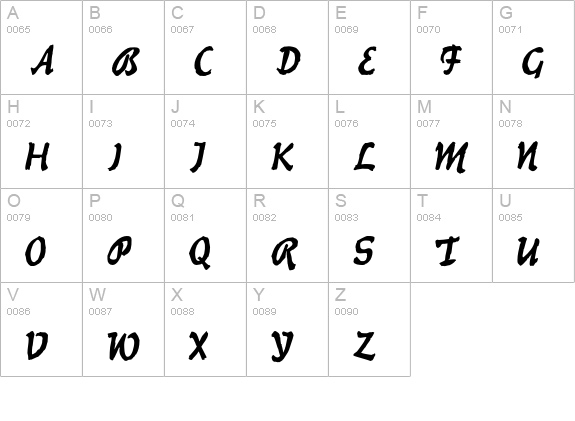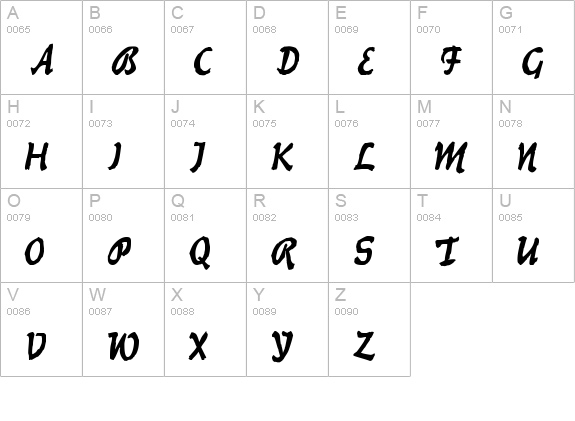
Bilitis Font Details
Bilitis font is a beautiful and elegant typeface that exudes sophistication and charm. Its flowing curves and graceful lines make it perfect for adding a touch of class to any design project. With its timeless appeal, Bilitis font is versatile and suitable for a wide range of applications, from branding to invitations to editorial design. What makes Bilitis font even more appealing is that it is available for free download at FontsMarket.com. This means that you can easily access this stunning typeface and incorporate it into your projects without any cost. Don't miss out on the opportunity to enhance your designs with the exquisite beauty of Bilitis font – download it today and start creating stunning visuals that stand out from the crowd.